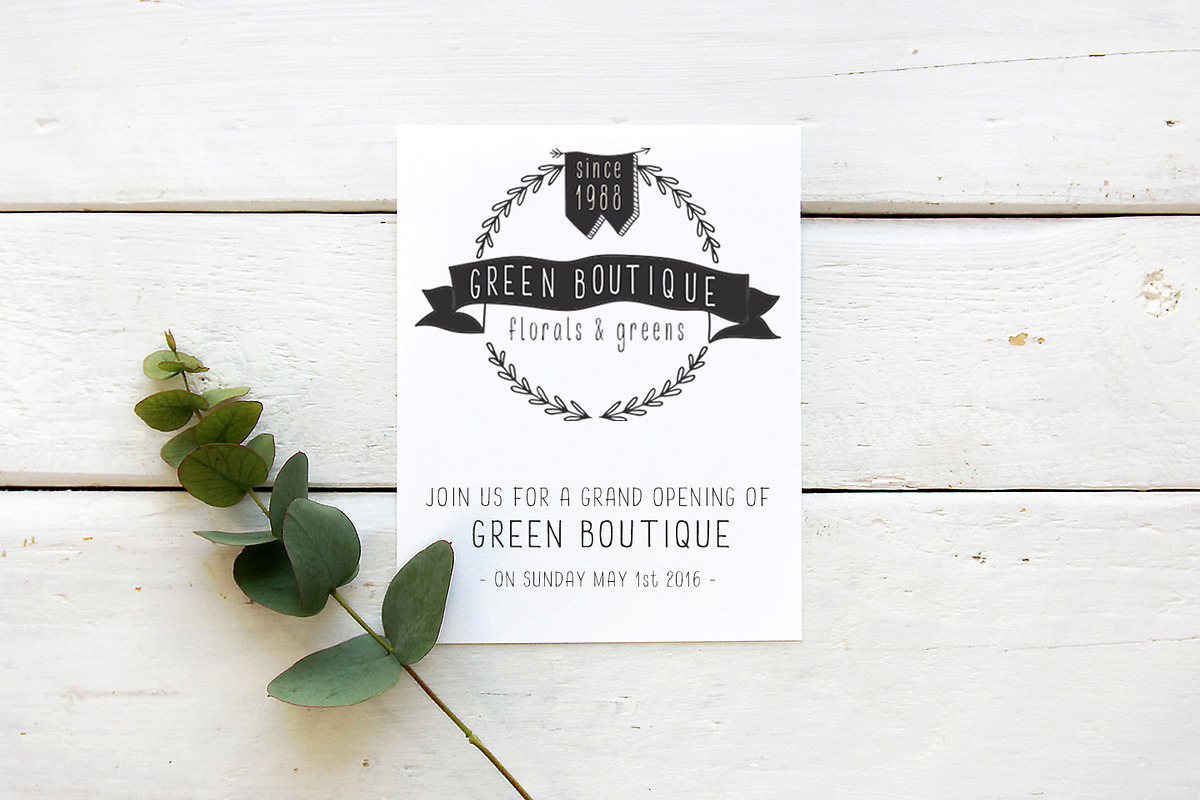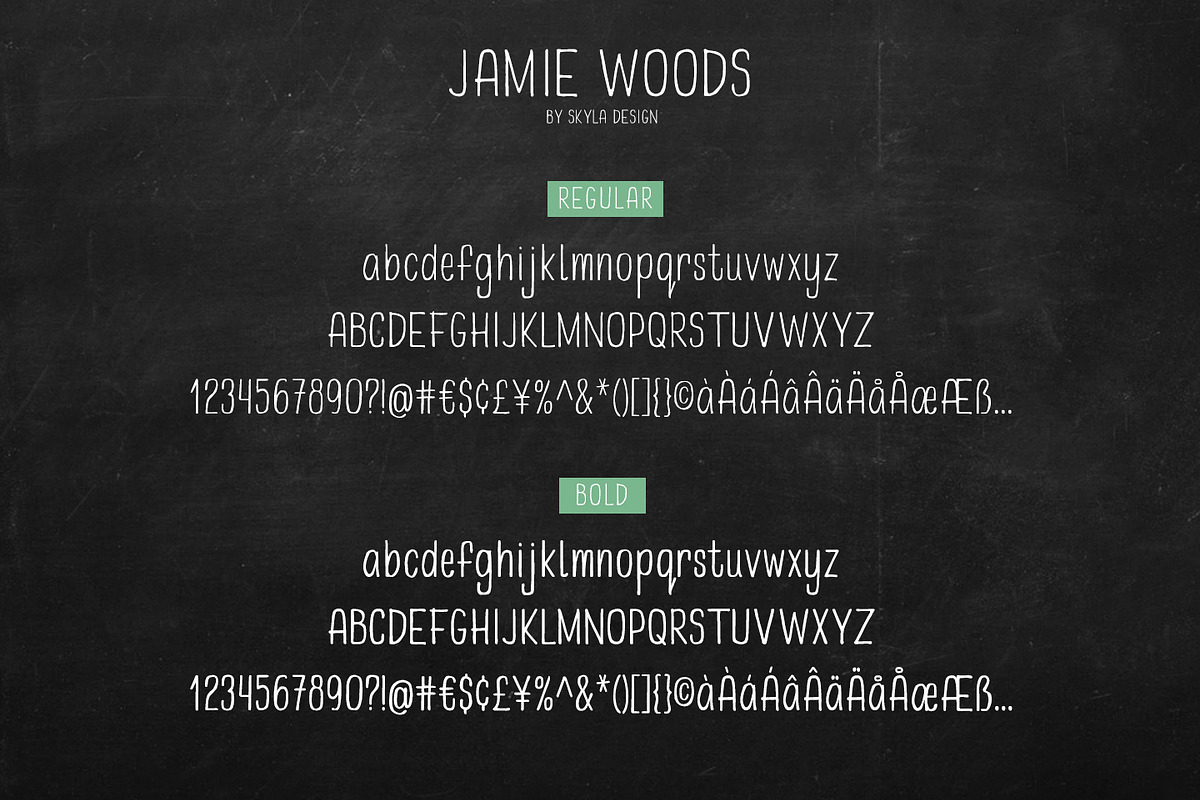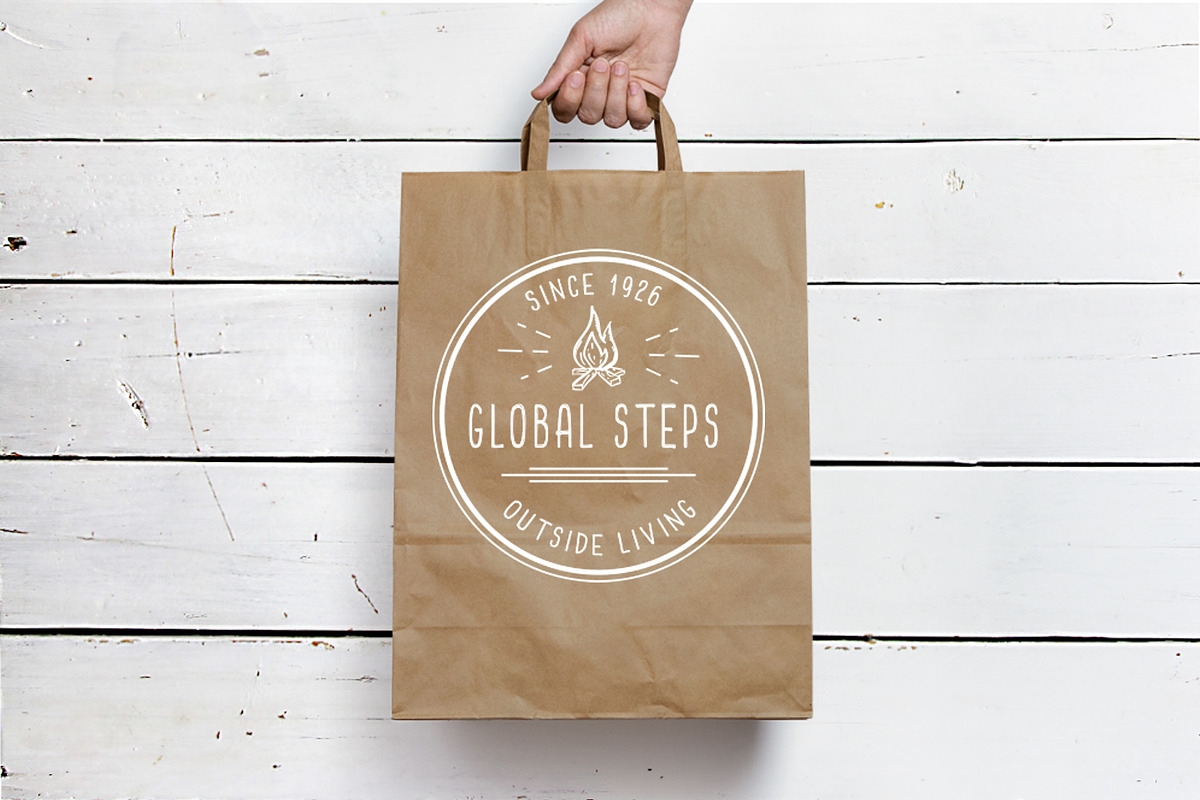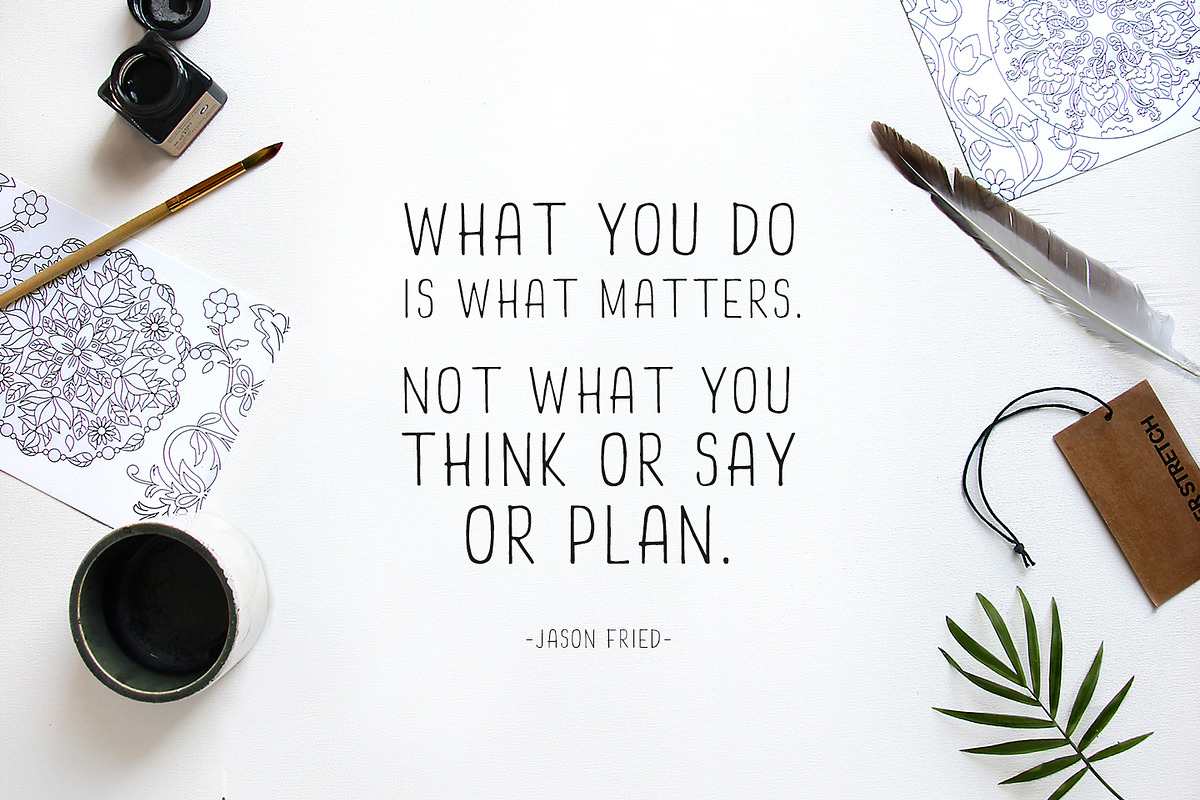
Jamie Woods condensed font
Jamie Woods condensed font by Angele Kamp is a font selected for branding, posters, packaging, typography.
Why Jamie Woods condensed font is worth a look
Jamie Woods condensed font by Angele Kamp fits naturally into Branding, posters, packaging, typography.